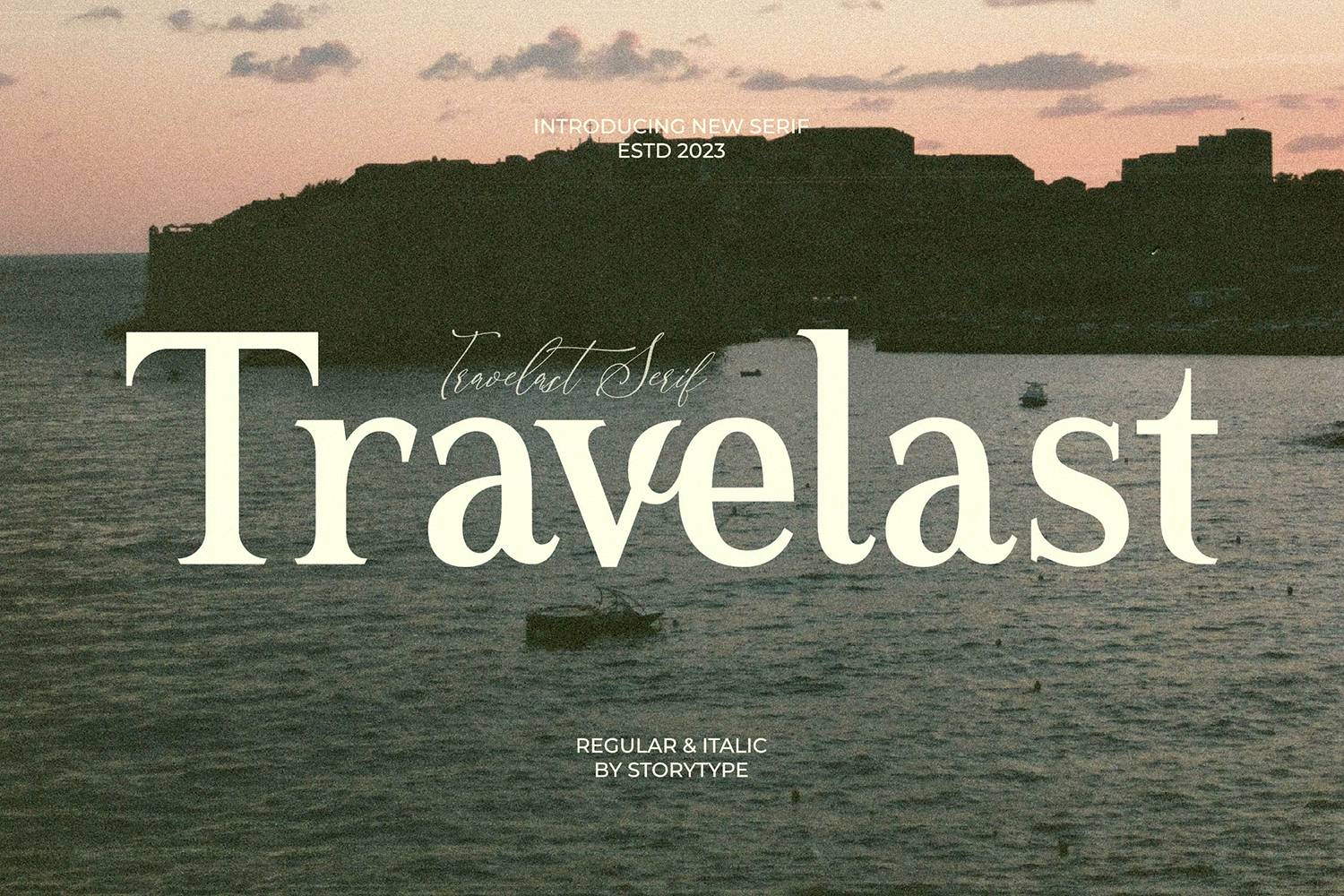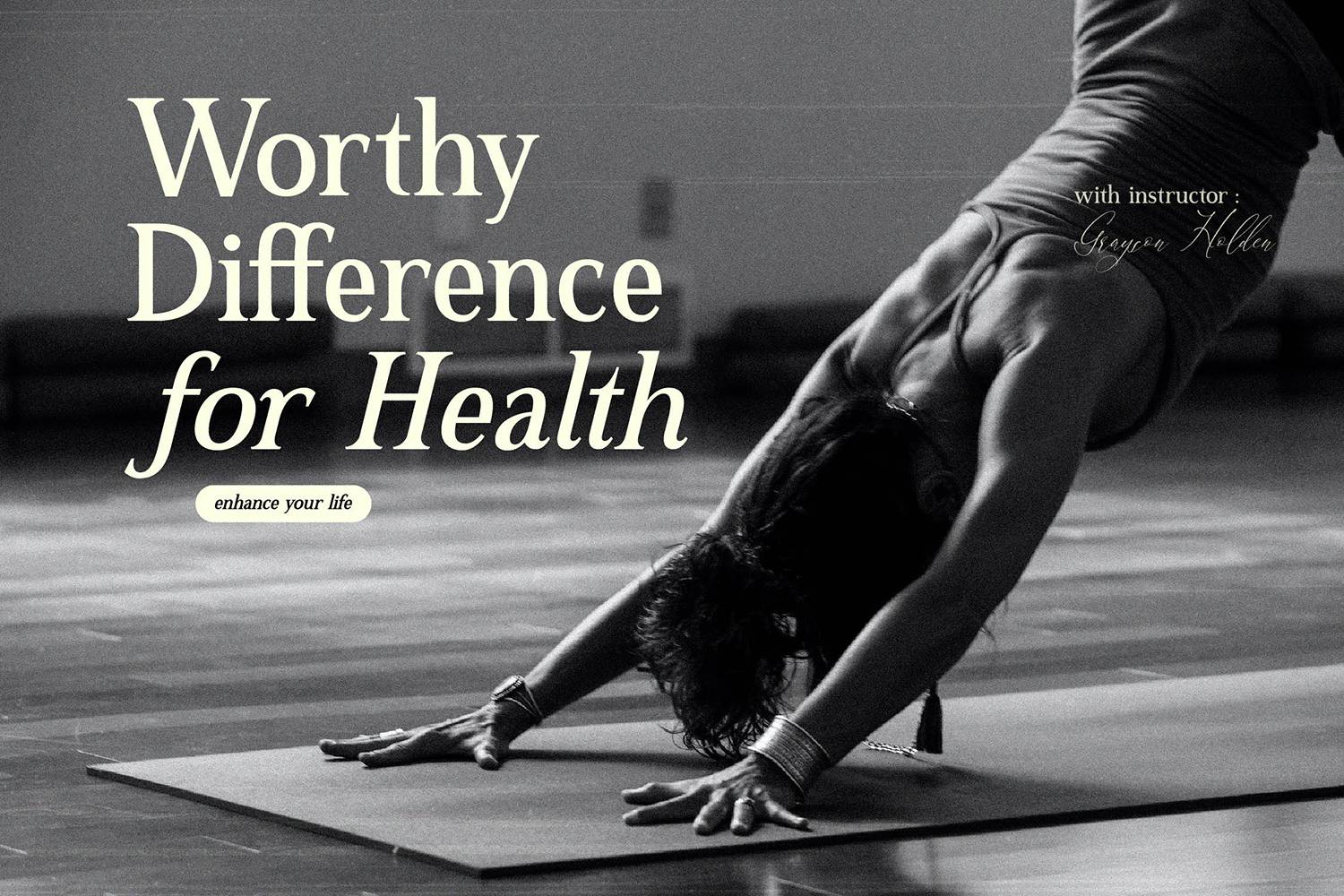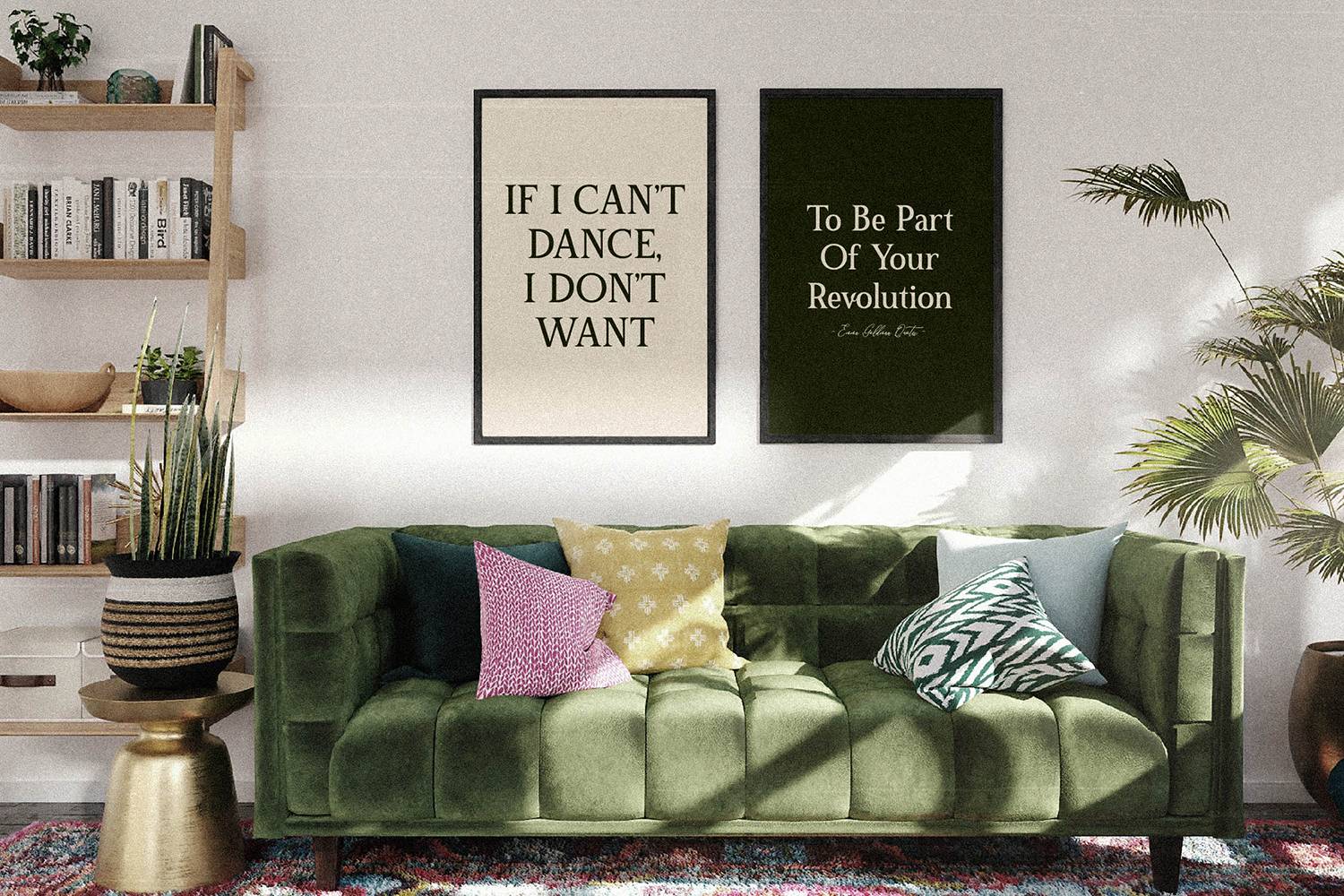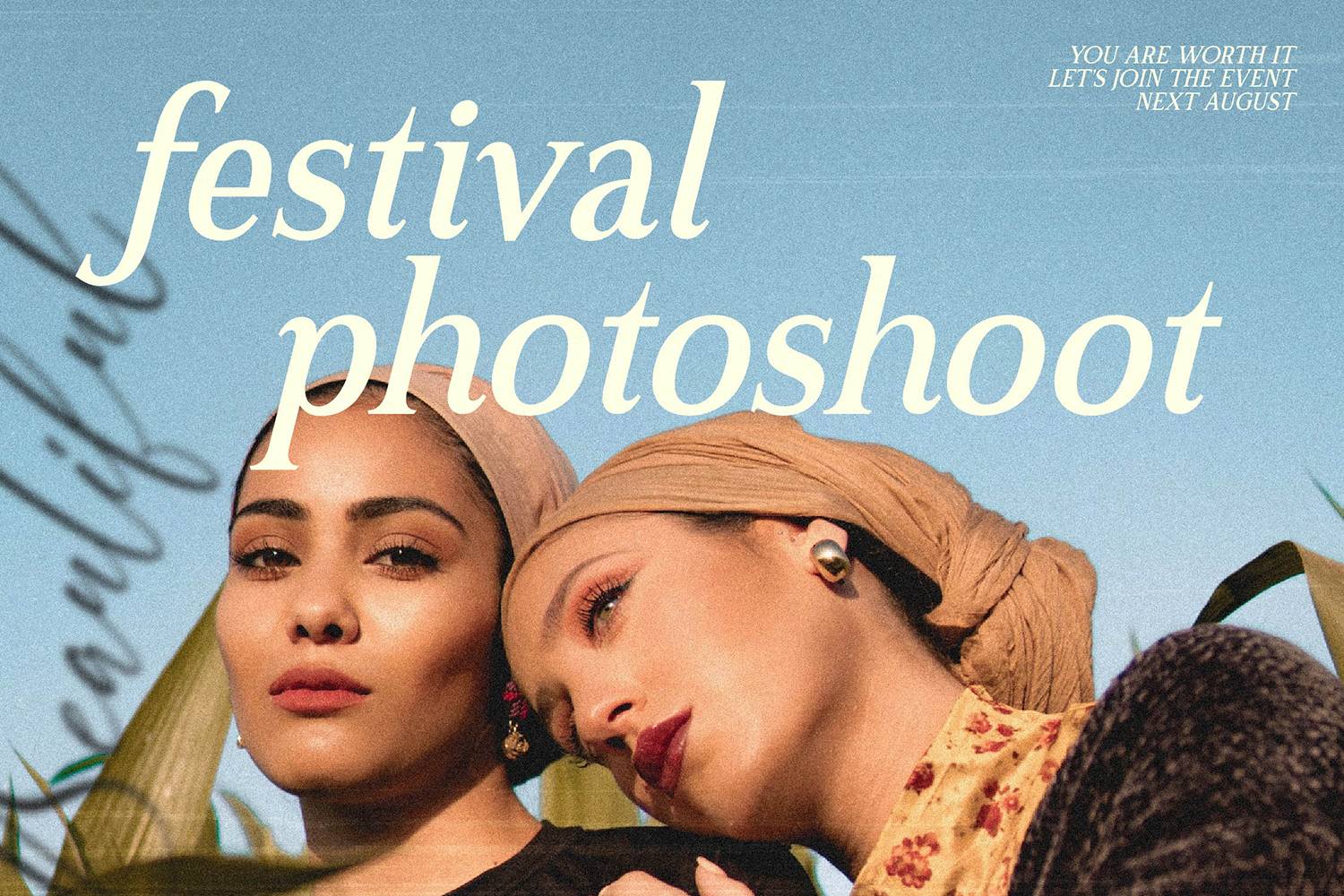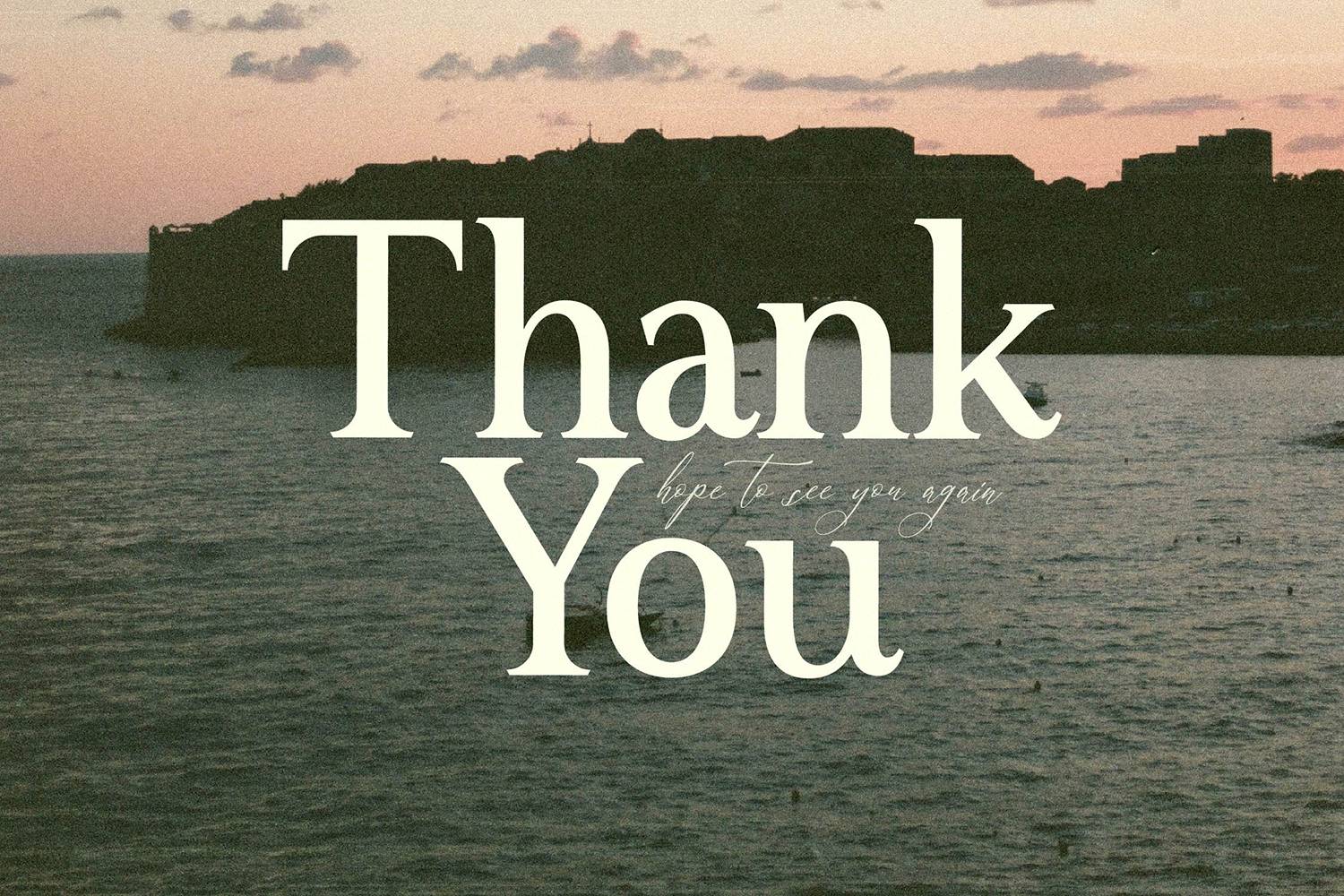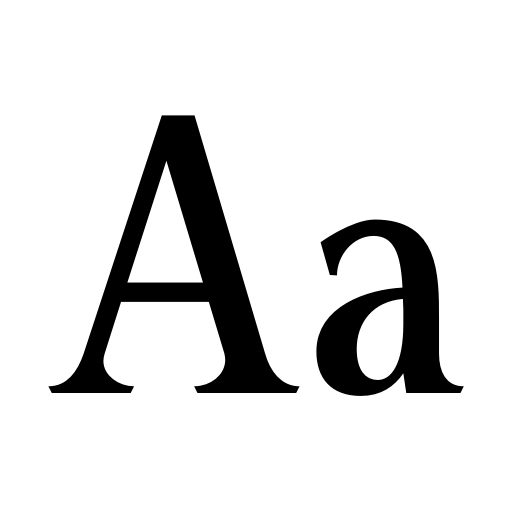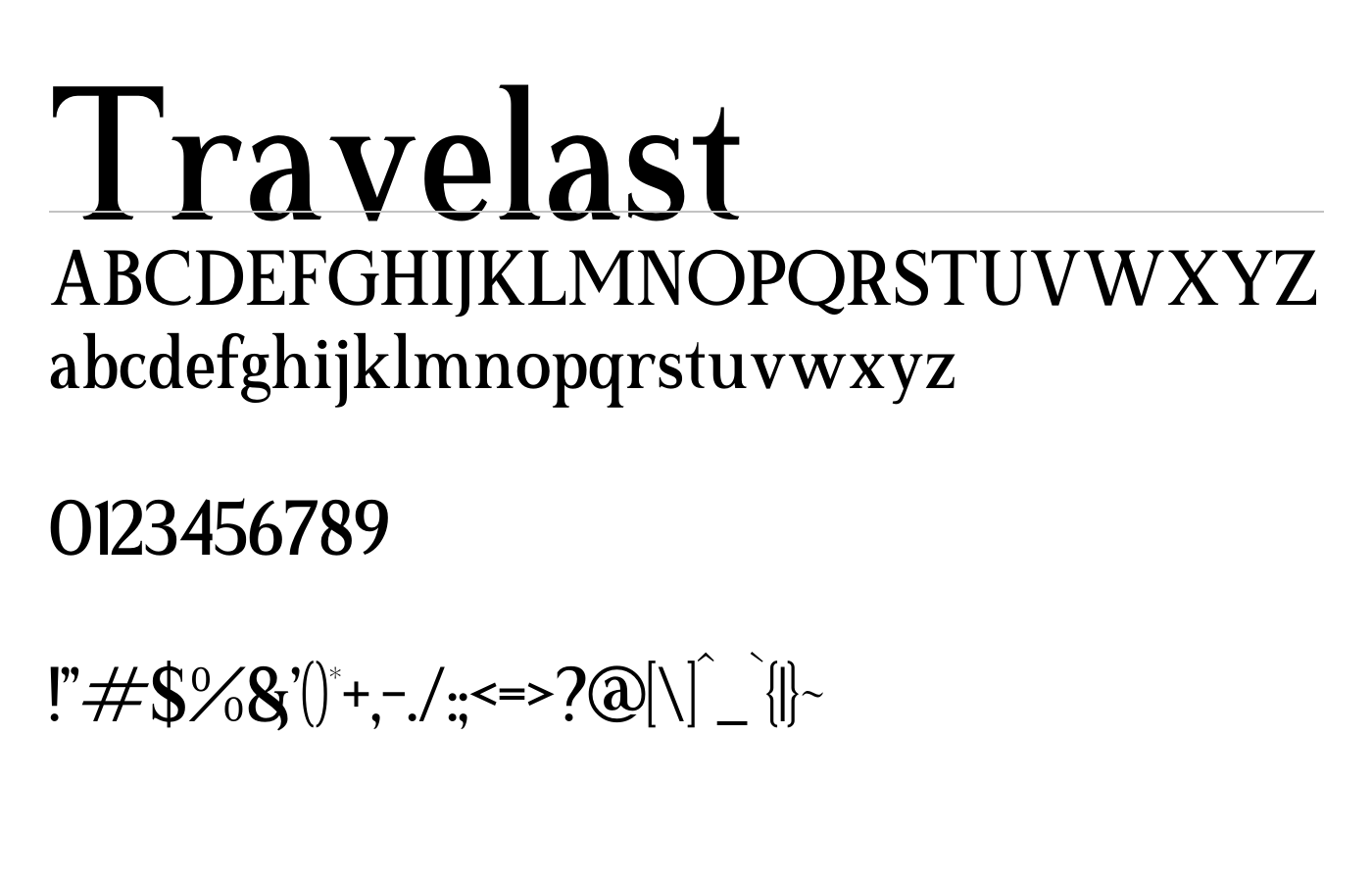
Travelast is a classic serif font with elegant, high-contrast strokes and refined bracketed serifs that convey a timeless and sophisticated feel. Its traditional letterforms, including double-story a and g, alongside clean lining figures, make it ideal for luxury branding, editorial design, and formal headlines where clarity and grace are essential. This font works beautifully in settings that demand a polished, professional look with a touch of vintage charm.
Travelast Font
About Travelast Font